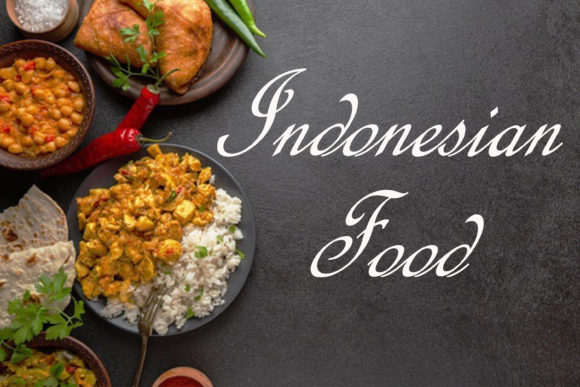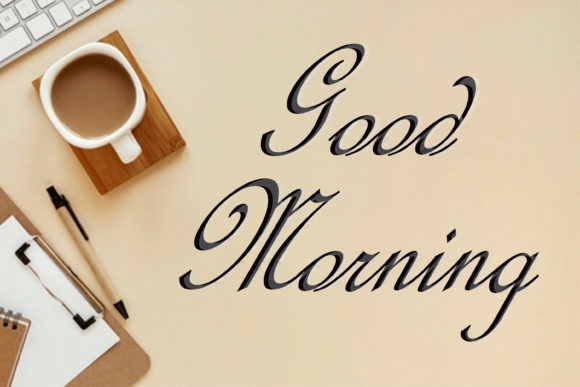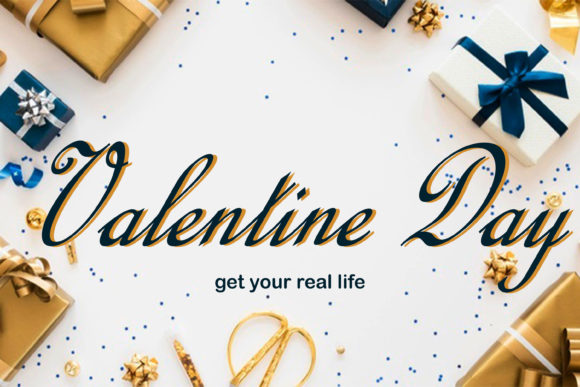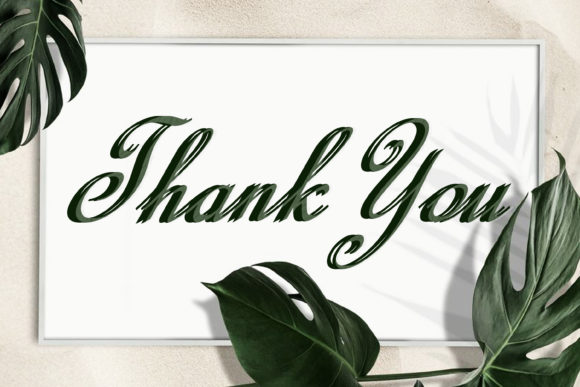
Calligraphy Script Font
Calligraphy Script is a distinct and graceful script font. Fall for its ravishing style and use it to create gorgeous designs. This font is PUA encoded which means you can access all glyphs and swashes with ease!